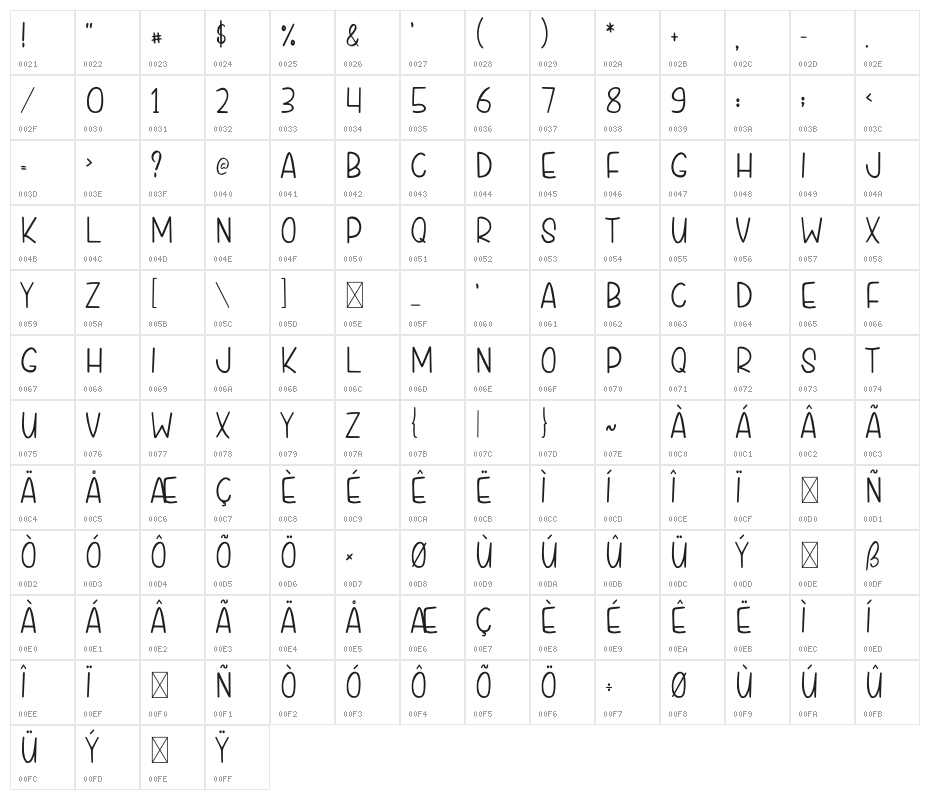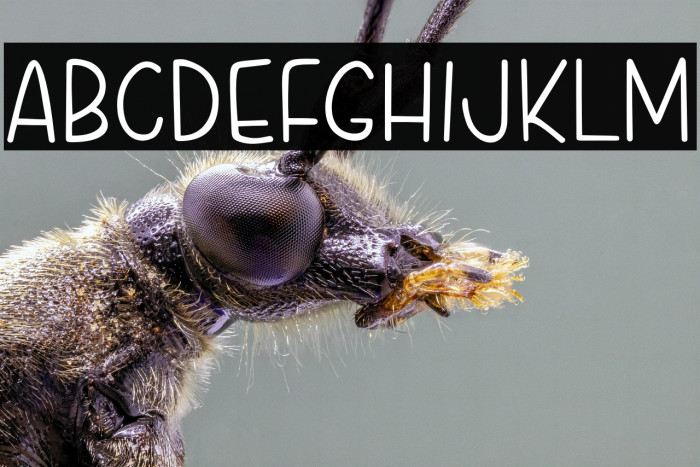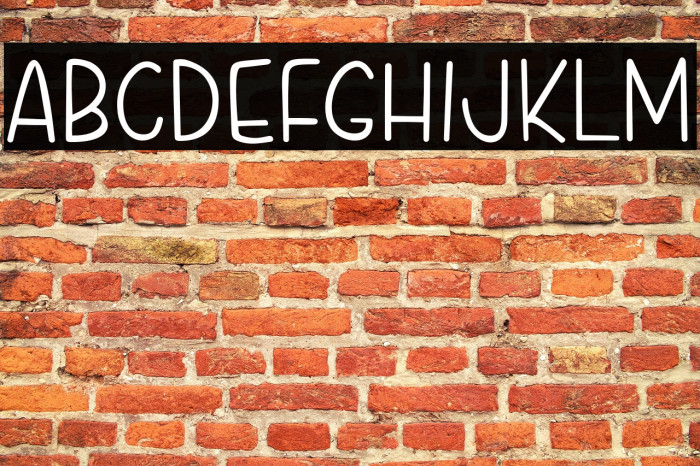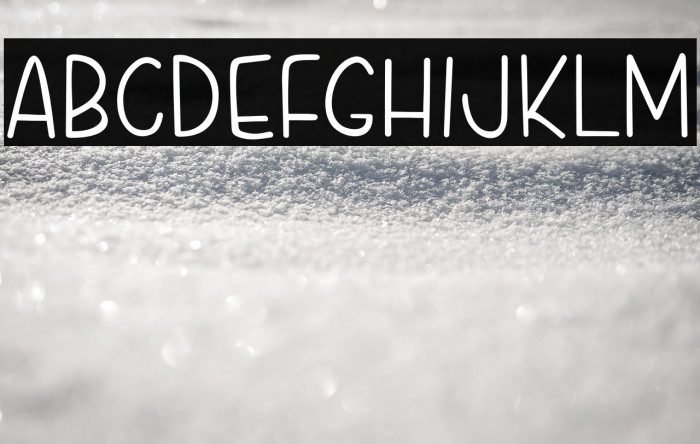
Cupcake Treats Font
Cupcake Treats Description
This playful and whimsical font features a handwritten style with rounded edges and a casual, friendly appearance. The characters are slightly irregular, giving it a charming and approachable feel. The uppercase and lowercase letters maintain a consistent flow, while the numerals and special characters complement the overall style. The font's simplicity and readability make it versatile for various design projects. Its informal nature suggests a sense of fun and creativity, ideal for projects that aim to convey warmth and approachability.
| Proposed Projects | Ideal for children's books, greeting cards, playful branding, and casual invitations. |